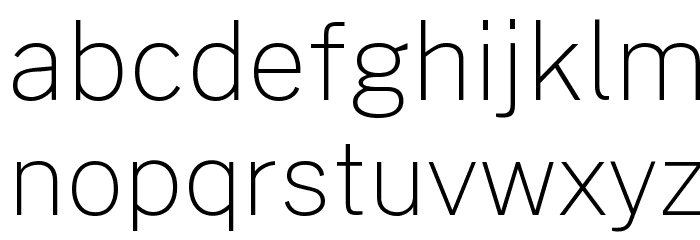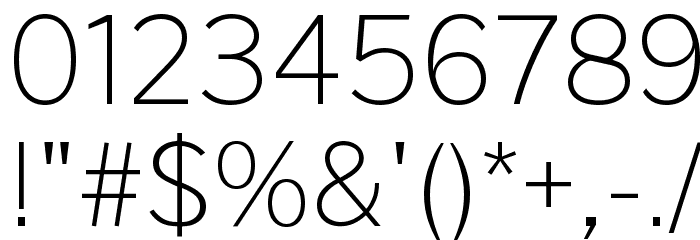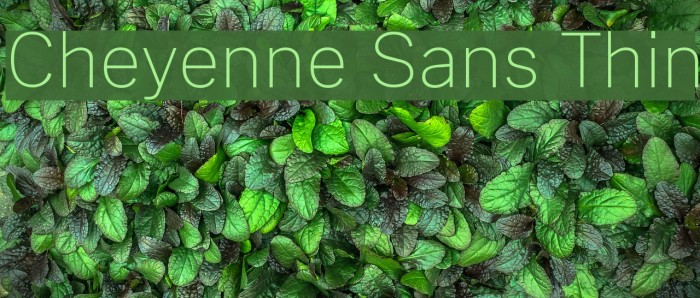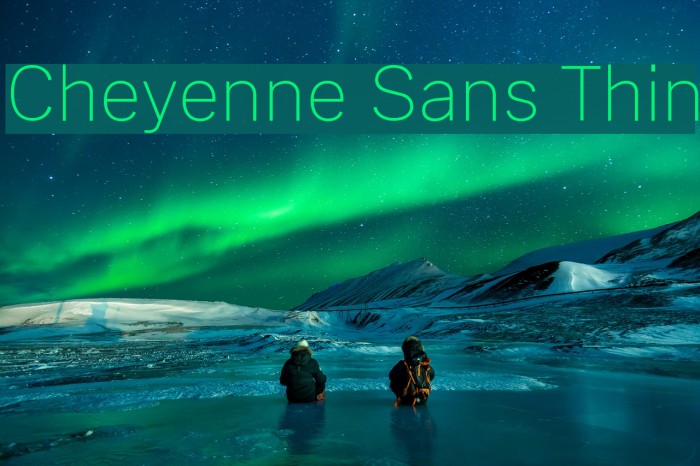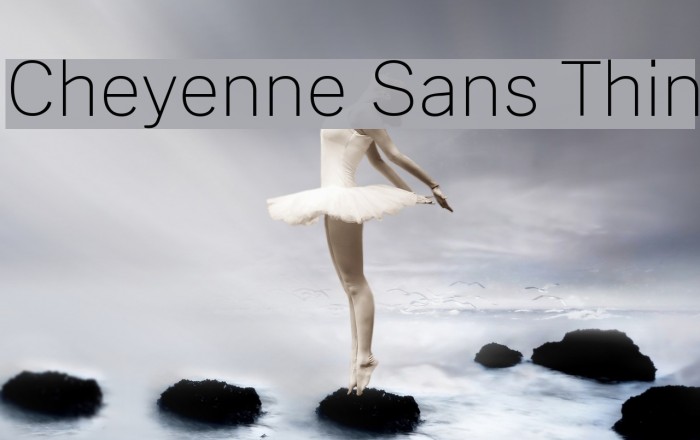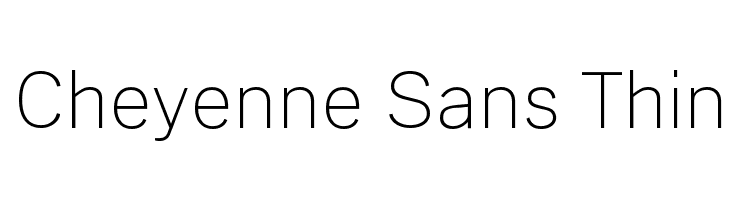
Cheyenne Sans Thin Font
This font exhibits a clean and modern sans-serif style with a thin weight, characterized by its minimalistic and straightforward design. The characters are evenly spaced, providing a balanced and airy appearance. The uppercase and lowercase letters maintain a consistent height and width, ensuring readability and uniformity. The numerals and special characters are designed to complement the alphabet, maintaining the same thin and sleek aesthetic. This font is versatile, suitable for a variety of design applications where clarity and simplicity are desired.
A modern, thin sans-serif font with a clean and minimalistic design.